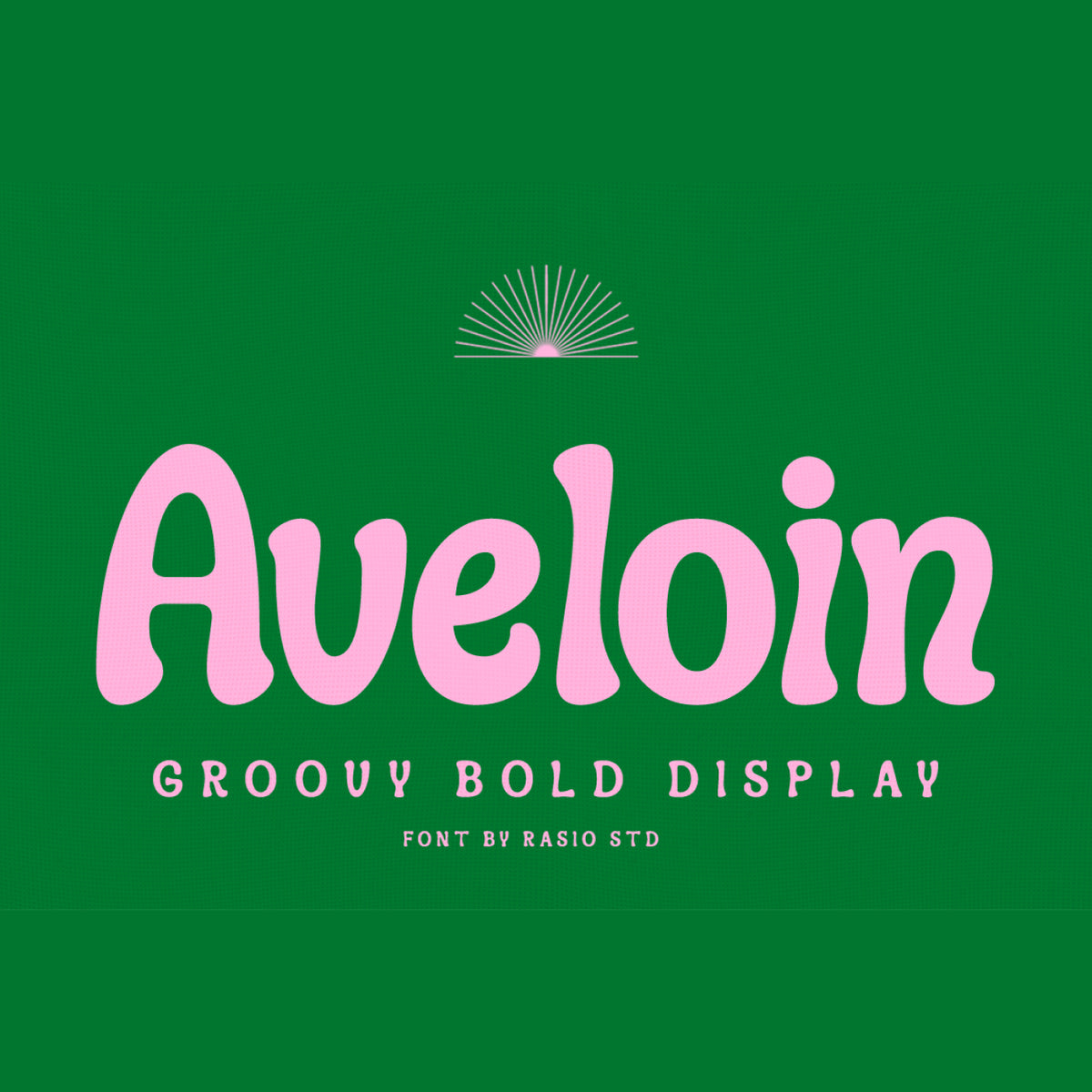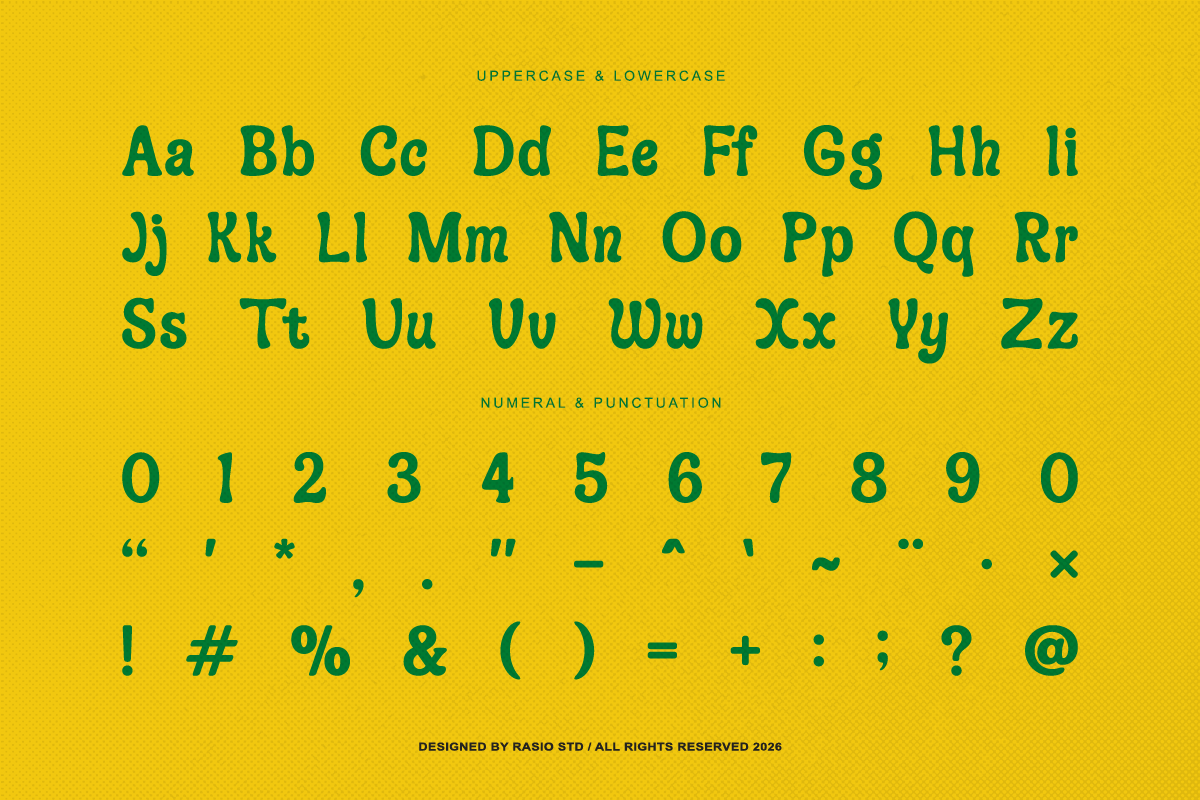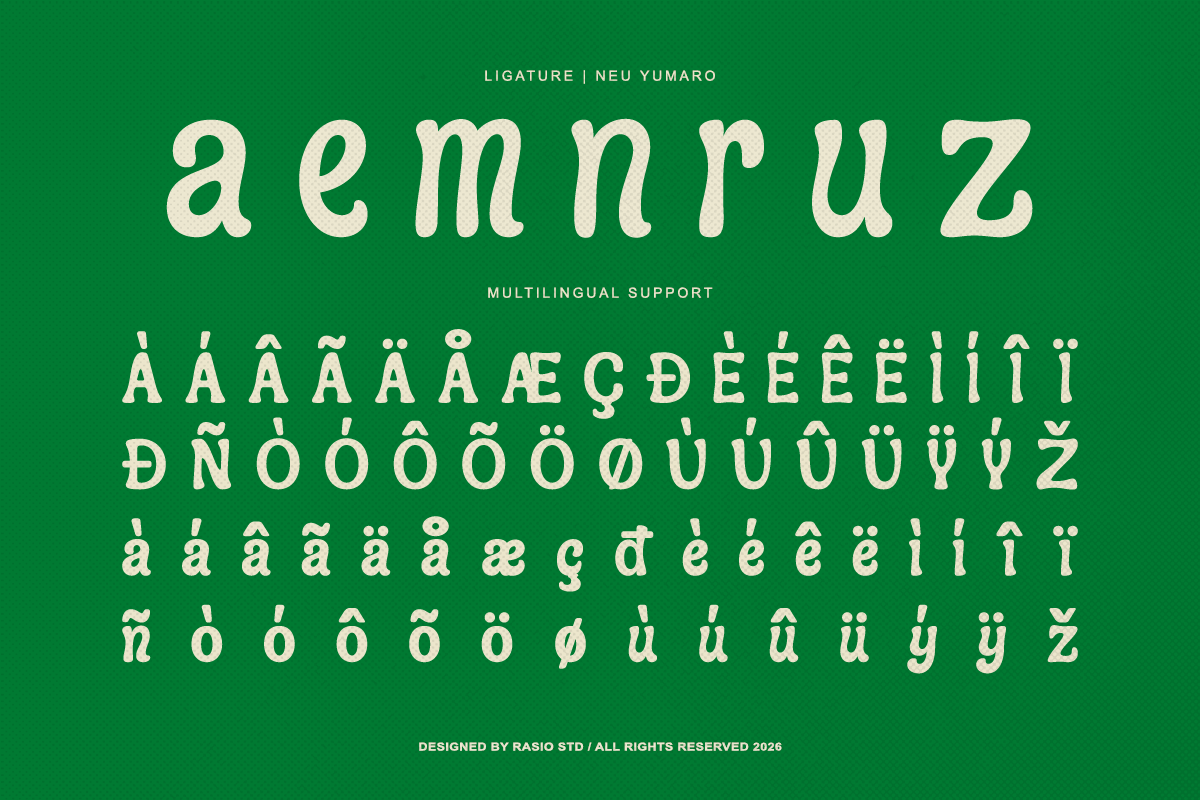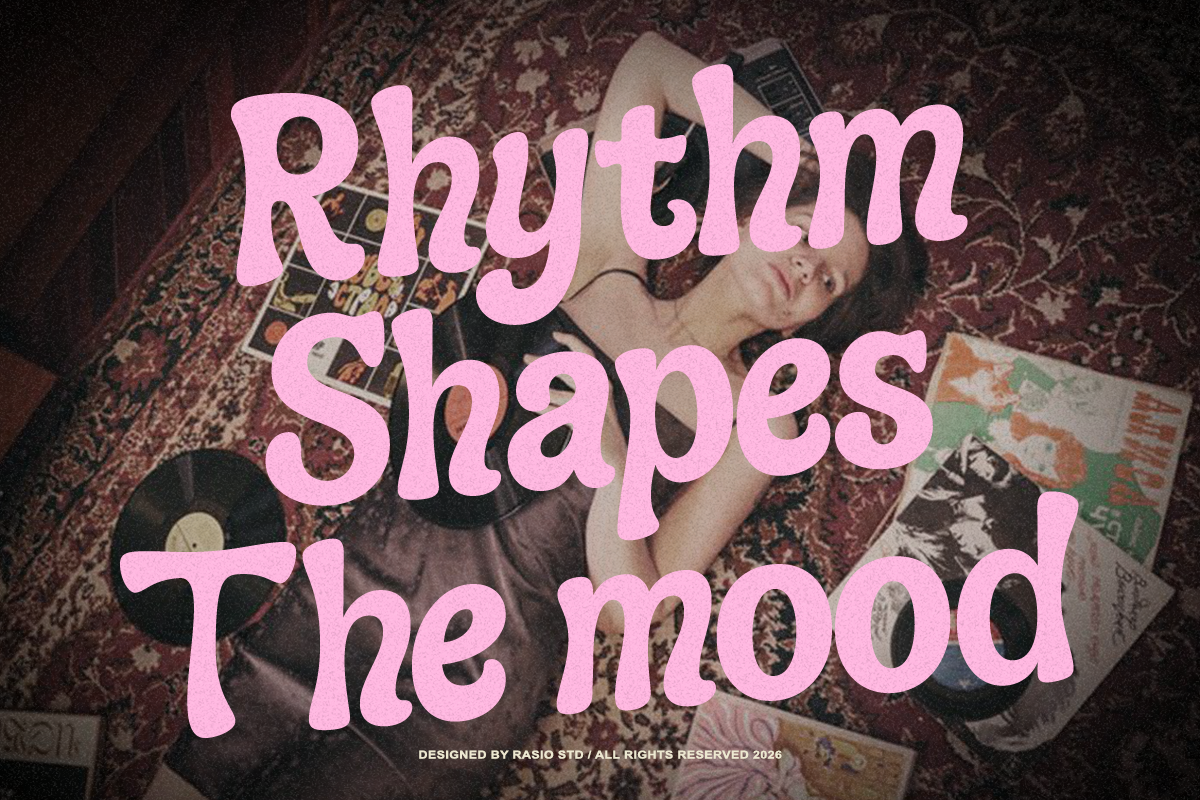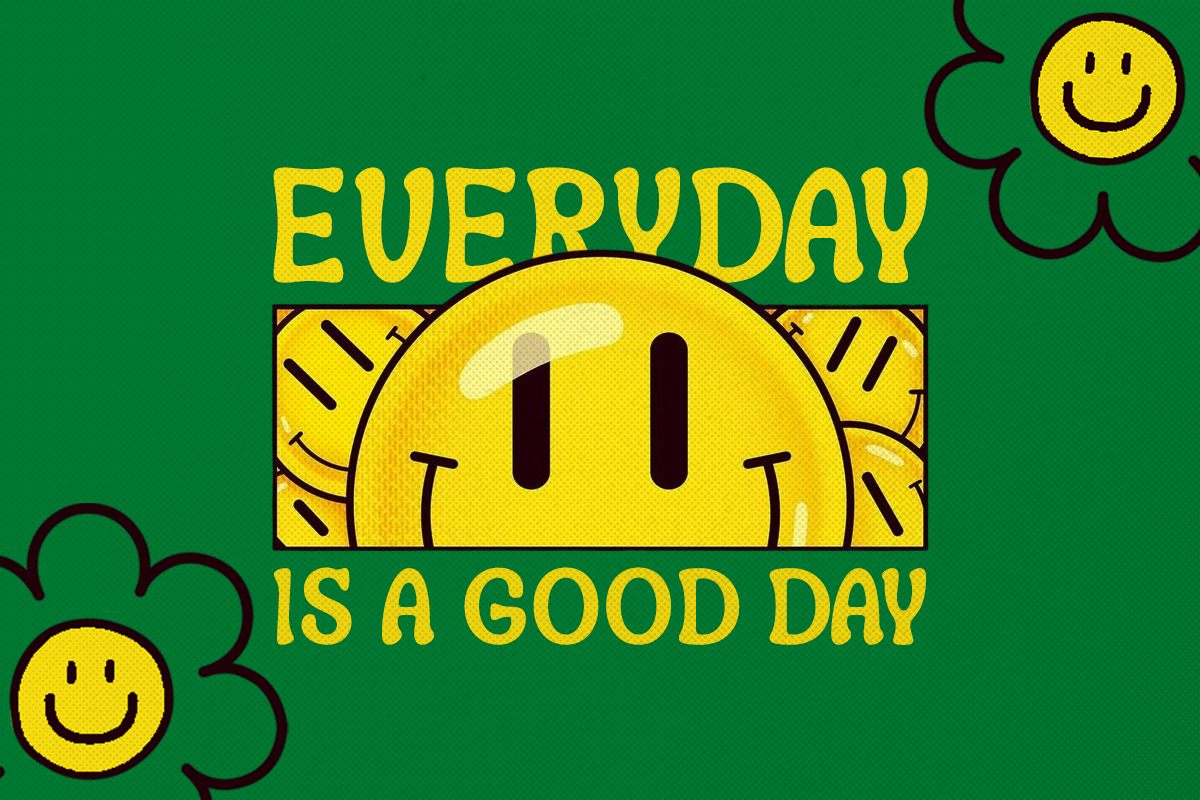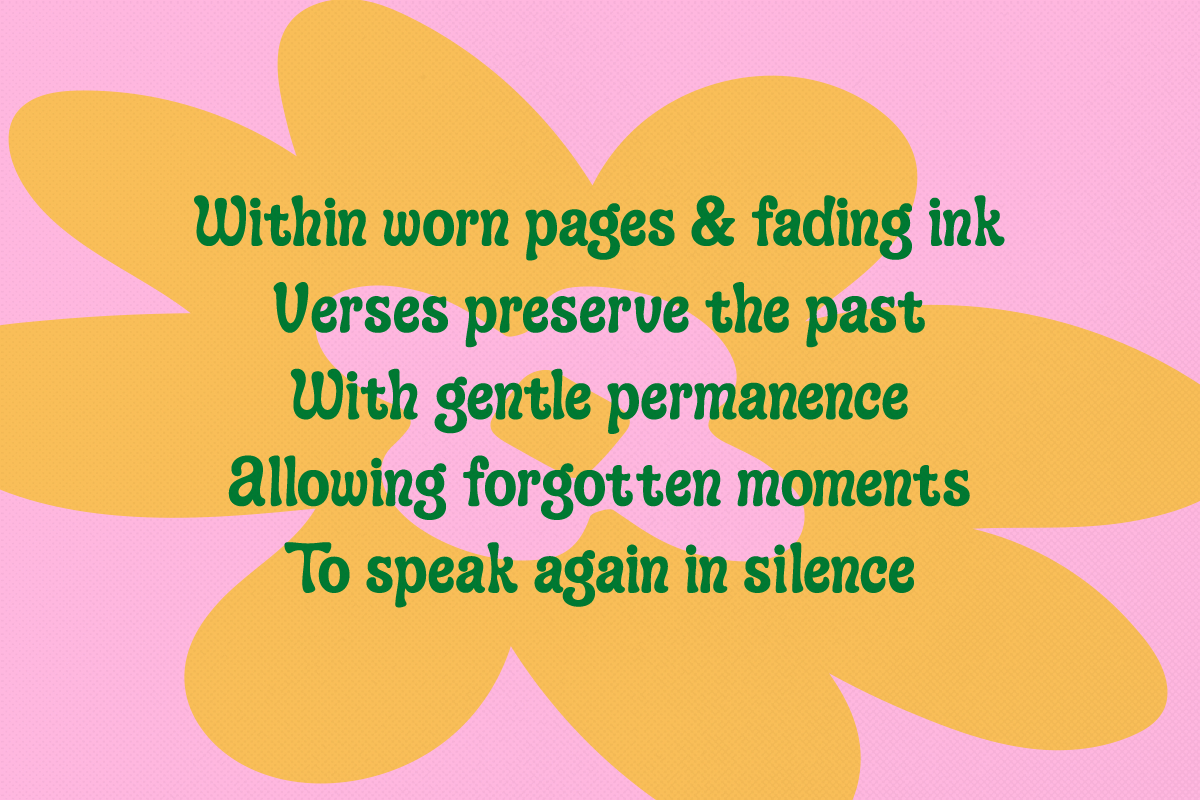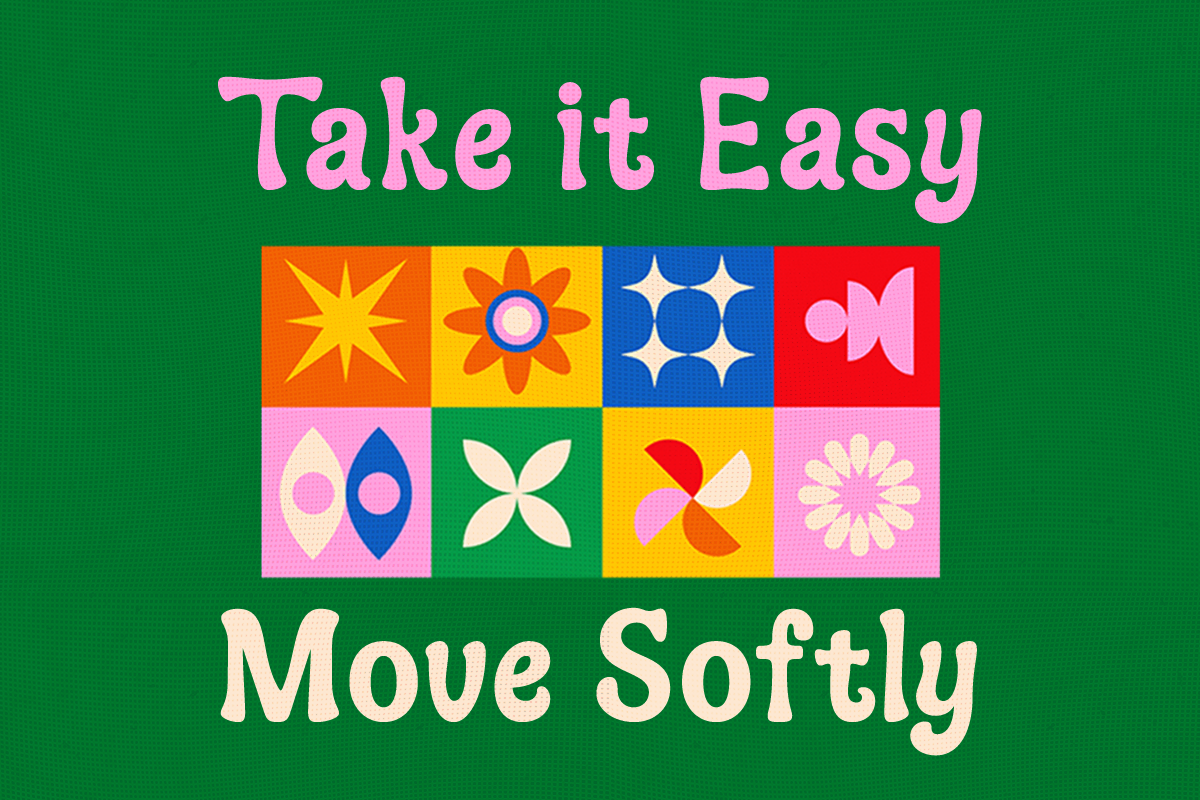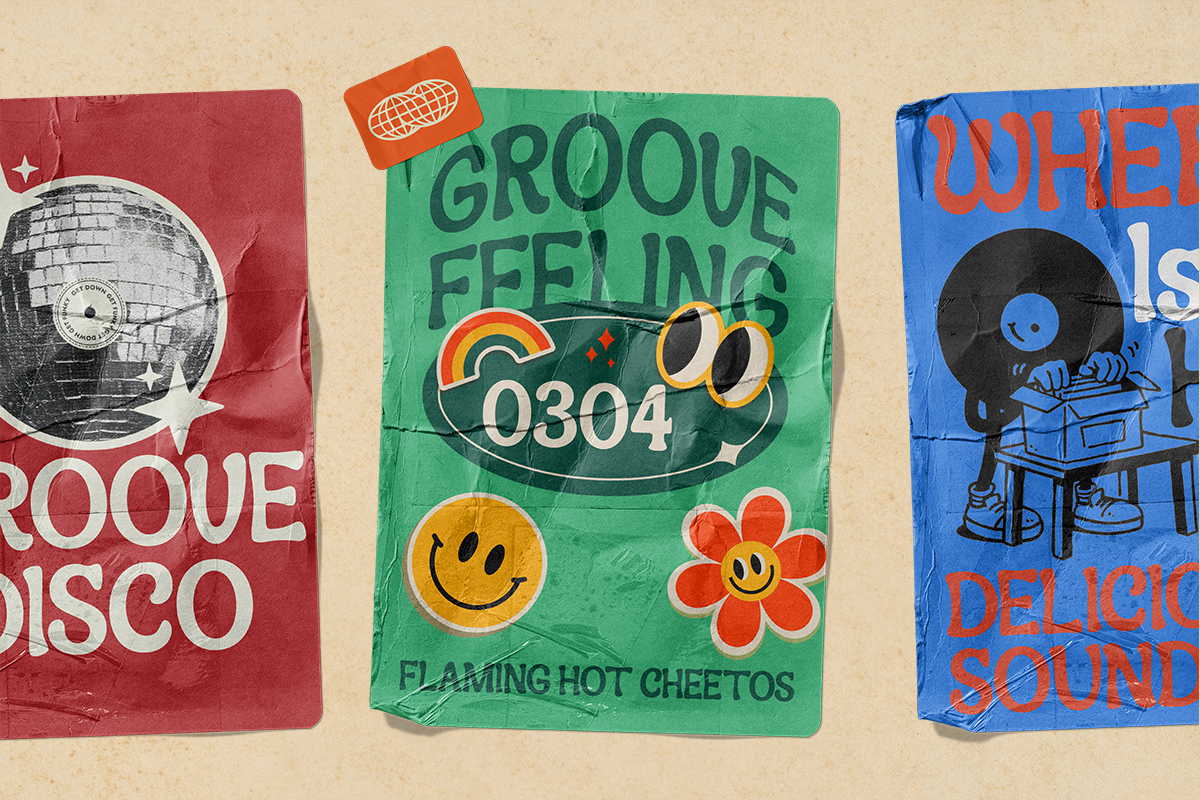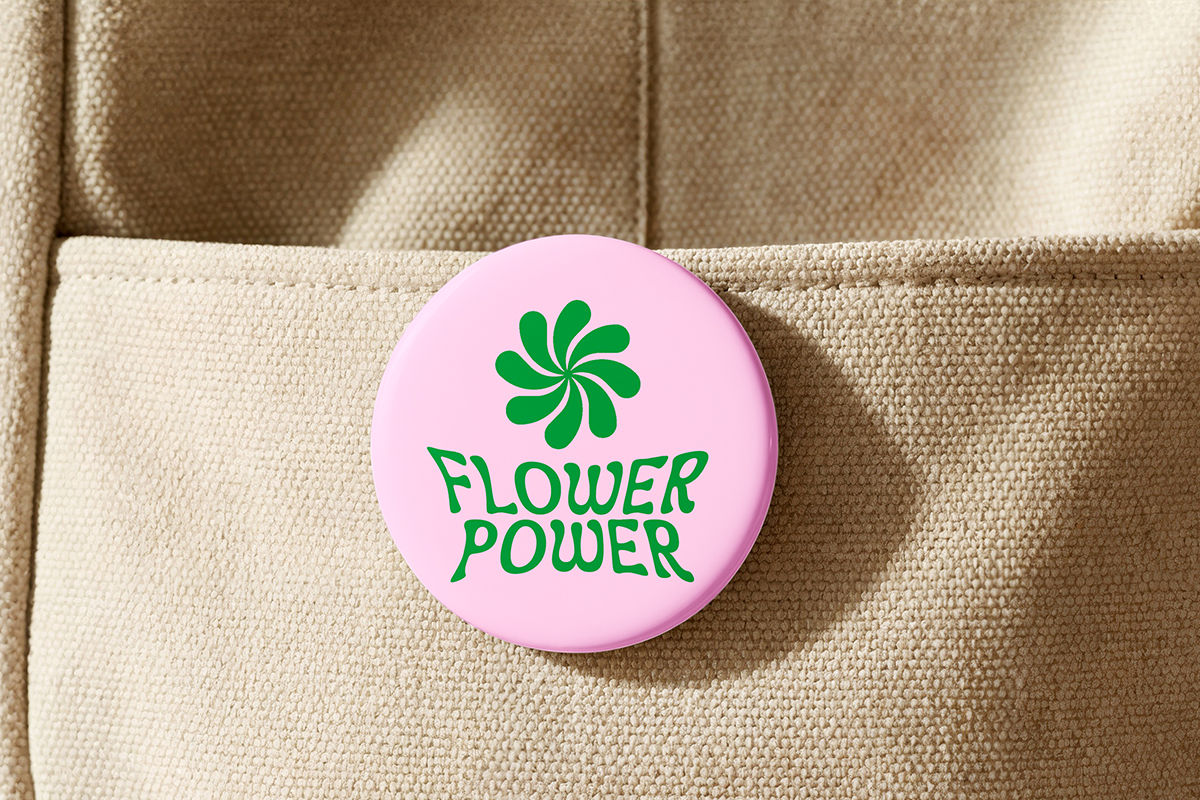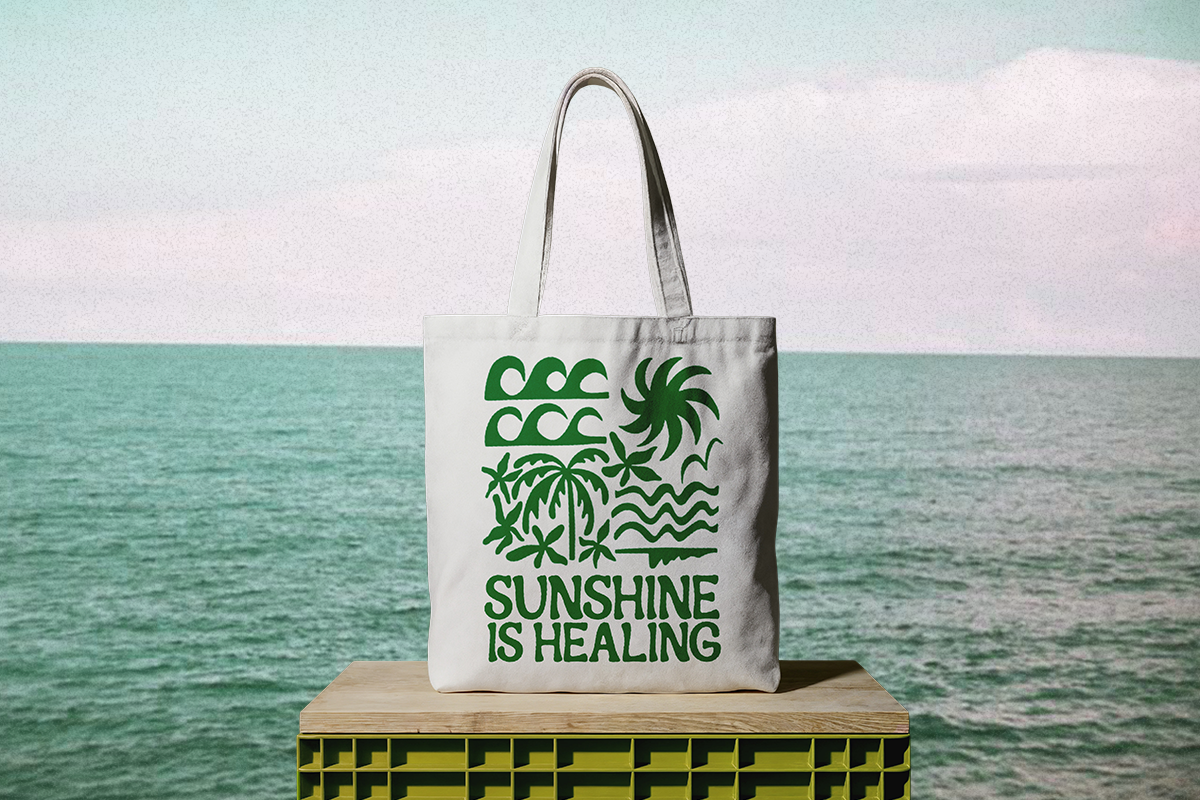
Aveloin Groovy Bold Display Font
Aveloin is a groovy bold display font featuring soft curves, playful proportions, and a retro-inspired character style. The font includes uppercase and lowercase letters, numerals, punctuation, and multilingual support, designed for expressive and eye-catching typography. Its rounded strokes and rhythmic letterforms create a cheerful visual tone while maintaining clear readability at display sizes.
Relevance and Use Cases is perfect for creative projects that require a fun, friendly, and expressive visual voice, especially when strong personality and visual impact are needed. It works well for branding with a playful identity, poster and flyer designs, social media graphics, lifestyle products, and retro-inspired creative campaigns.
Ligatures Supports
Aveloin Groovy Bold Display Font is a retro-inspired bold display typeface with rounded strokes and playful proportions, including uppercase and lowercase letters, numerals, punctuation, ligatures, and multilingual support. It is available in OTF, TTF, and WOFF formats.